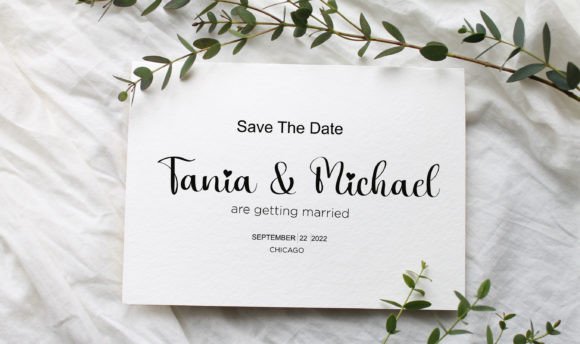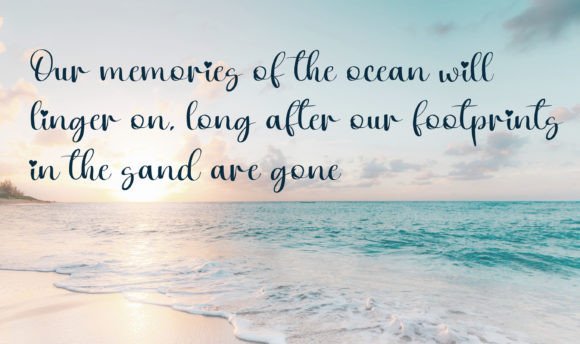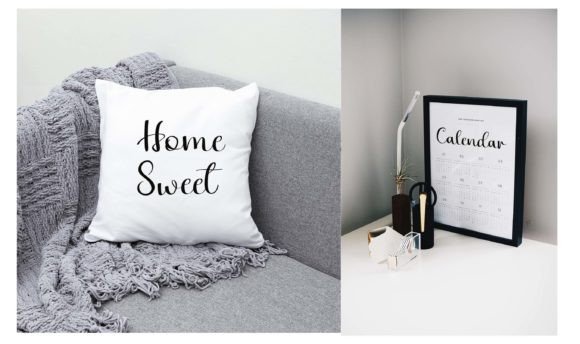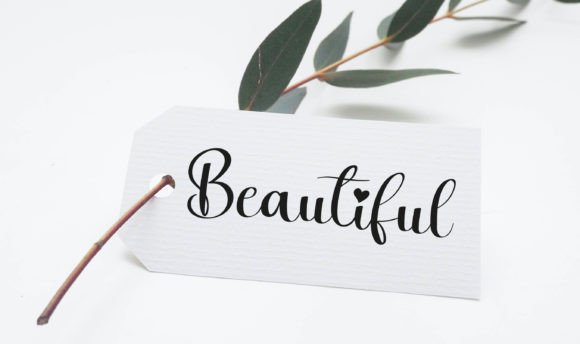
About Palm Beach Font
Introducing Palm Beach, an attractive, elegant, and charming handwritten font designed to enhance your creative projects. This versatile typeface is a perfect fit for a wide range of applications, including wedding designs, thank-you cards, quotes, greeting cards, logos, business cards, brand identity, the clothing industry, posters, games, magazines, books, Instagram, websites, cartoons, YouTube, and any other project that calls for a handwritten touch.
The attractive and elegant qualities of Palm Beach make it a standout choice for various design contexts. Whether you’re working on wedding invitations, thank-you cards, or brand identity, this font adds a touch of charm and sophistication to your text.
In the clothing industry, Palm Beach becomes a stylish and appealing option for labels, tags, and branding materials. Its handwritten touch brings a personalized and trendy look to your fashion-related designs.
For posters, games, and magazines, Palm Beach contributes to a visually pleasing layout. Its charming and elegant script adds a touch of warmth and character, enhancing the overall aesthetics of your visual content.
On digital platforms such as Instagram, websites, and YouTube, Palm Beach becomes a captivating element that draws attention. Its handwritten style brings a personal and authentic feel to your digital presence, making your content more relatable.
In the realm of cartoons and YouTube, Palm Beach adds a friendly and approachable vibe to text elements. The charm of this font aligns well with creative and expressive content, creating a harmonious visual experience for your audience.
The versatility of Palm Beach ensures that it can adapt to a wide range of creative projects, allowing you to use it seamlessly across different mediums.
In summary, Palm Beach is more than just a font; it’s a creative tool designed to bring attractiveness, elegance, and charm to your projects. Whether you’re working on wedding designs, brand identity, or digital content, let Palm Beach be the font that elevates your creative endeavors with its charming and handwritten touch.